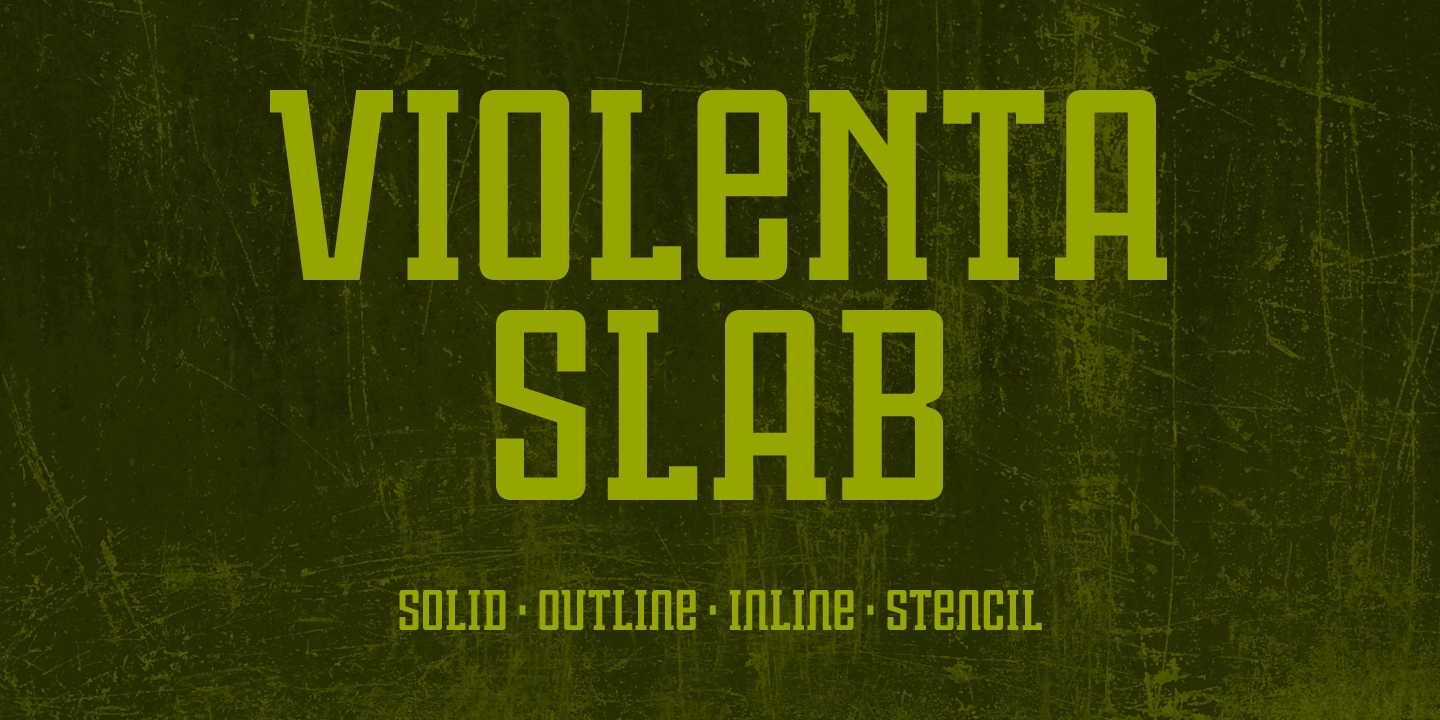
Violenta Slab Font
Violenta Slab Font is perfect for bold branding, impact headlines, poster design, magazine covers, advertising campaigns, strong logos, editorial design, sports graphics, entertainment promotions, and dramatic visual communications. This powerful typeface excels in both digital and print applications requiring commanding presence.
Violenta Slab Font is exciting because it delivers maximum visual impact with robust slab serif construction that commands attention while maintaining excellent readability. Its bold character creates dramatic visual statements that cut through noise and establish strong brand presence in competitive environments.
The Violenta Slab Font family includes regular, bold, black, condensed, extended, outline, and shadow variants, providing designers with comprehensive typographic options for various design scenarios and high-impact communication requirements.
Violenta Slab Font represents the ultimate expression of typographic power, combining aggressive slab serif design with contemporary functionality to create letterforms that dominate visual landscapes and capture immediate attention. This commanding typeface delivers uncompromising impact for brands that refuse to be ignored, making bold statements that resonate with audiences seeking strength, confidence, and decisive action. The font's aggressive character makes it particularly valuable for sports brands, entertainment companies, energy drinks, automotive manufacturers, and action-oriented businesses that require typography capable of conveying power, intensity, and uncompromising determination.
The structural foundation of Violenta Slab Font demonstrates masterful understanding of visual impact principles, with heavy serifs and bold proportions that create maximum presence without sacrificing legibility or professional appearance. This powerful construction ensures superior performance in challenging visibility conditions, from outdoor advertising to digital environments where content must compete for attention. The font's commanding qualities make it especially effective for brands in fitness, extreme sports, gaming, and entertainment industries that celebrate intensity and high-energy experiences.
Creative professionals working with Violenta Slab Font Free Download will discover exceptional versatility for high-impact design challenges. Its aggressive styling complements both edgy and mainstream design approaches, making it suitable for established brands and emerging companies requiring bold, memorable typography that breaks through market clutter. The font's dominant presence makes it particularly effective for product launches, promotional campaigns, event branding, and competitive industries that must communicate strength through powerful, attention-grabbing visual design.
Whether developing aggressive brand identities, creating impact advertising, or designing promotional materials, Violenta Slab Font provides the typographic power needed for communications that demand attention and establish dominant market presence while maintaining professional credibility and achieving maximum audience engagement across all competitive channels.